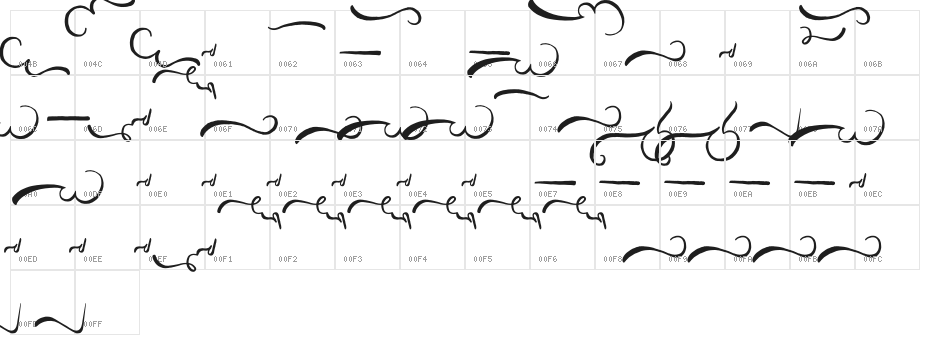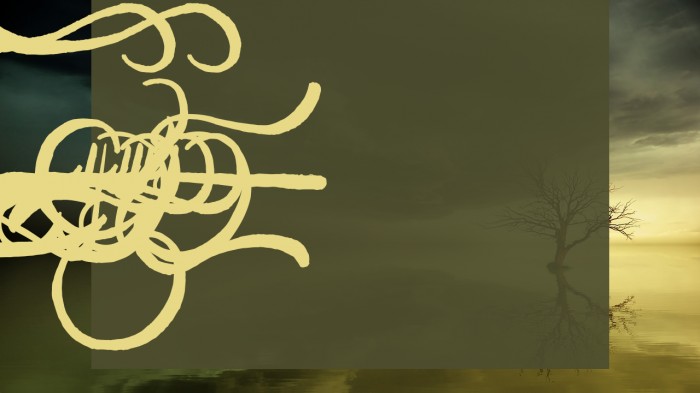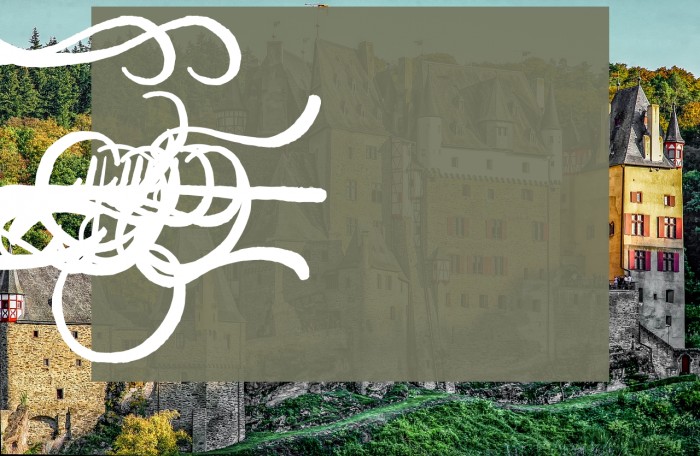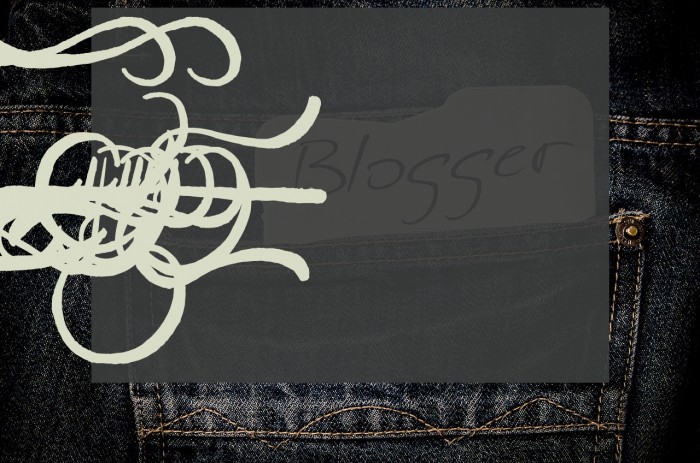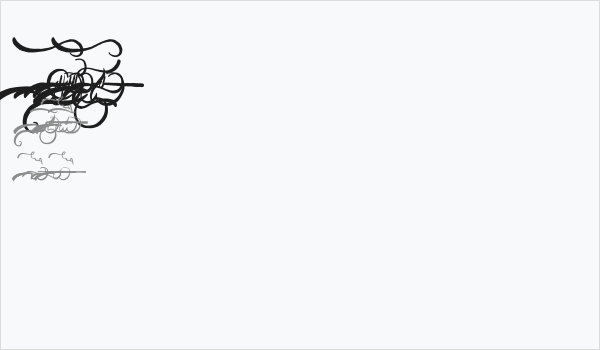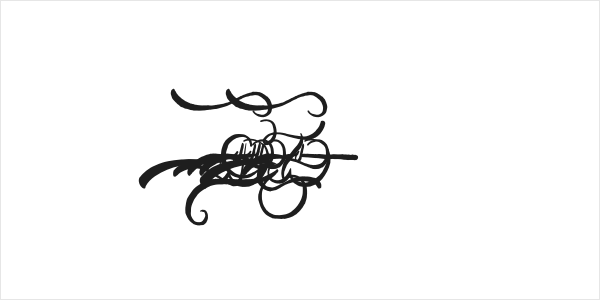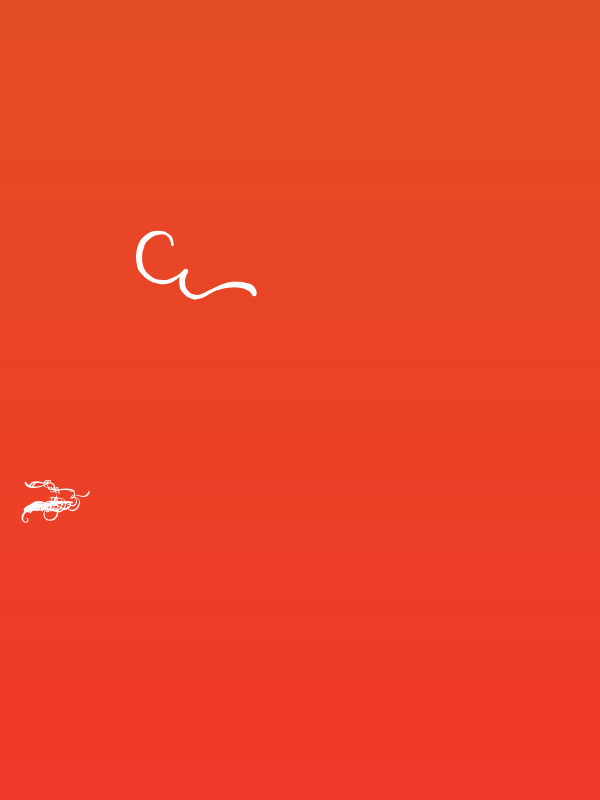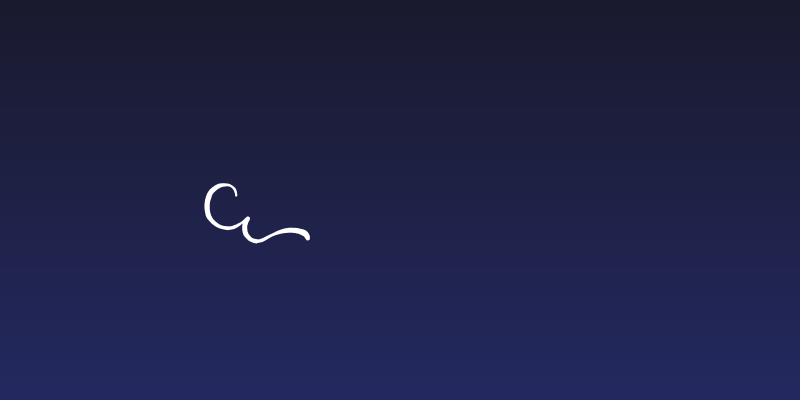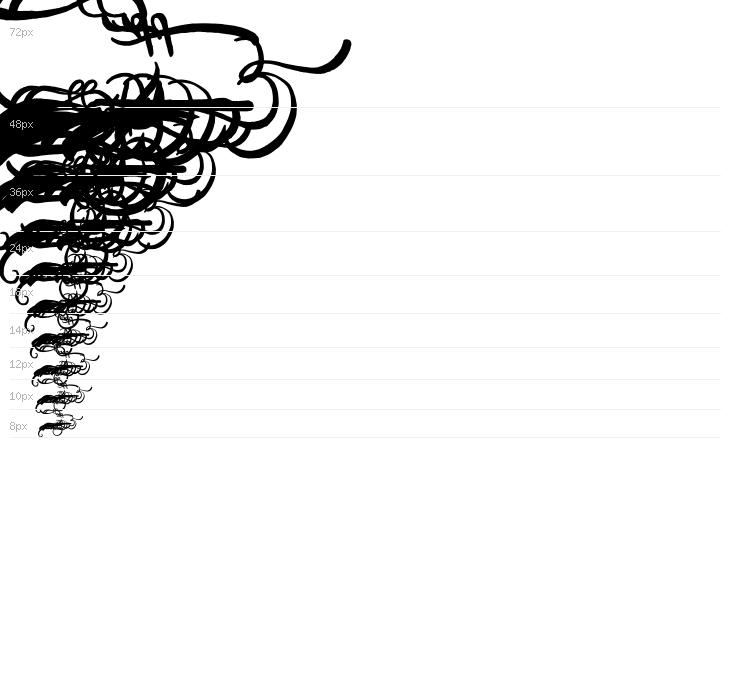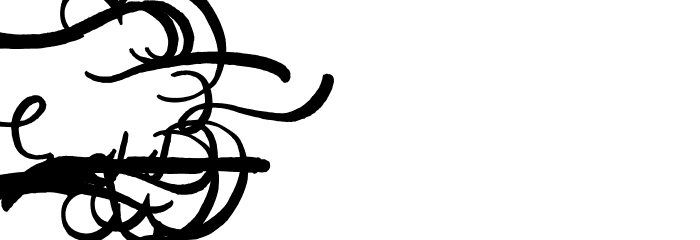
Aisy Khadijah Swashed Font
Aisy Khadijah Swashed Description
This font is highly decorative, featuring elaborate swashes and flourishes that create a sense of elegance and sophistication. The intricate design elements make it stand out, with each character adorned with artistic curves and loops. The font's ornate style is reminiscent of calligraphy, offering a unique and artistic touch to any design. It is not suitable for body text due to its complexity but excels in creating eye-catching headlines or decorative elements.
| Use Case | Headlines, Logos, Decorative elements |
| Proposed Projects | Ideal for wedding invitations, luxury branding, artistic posters, and decorative headlines. |